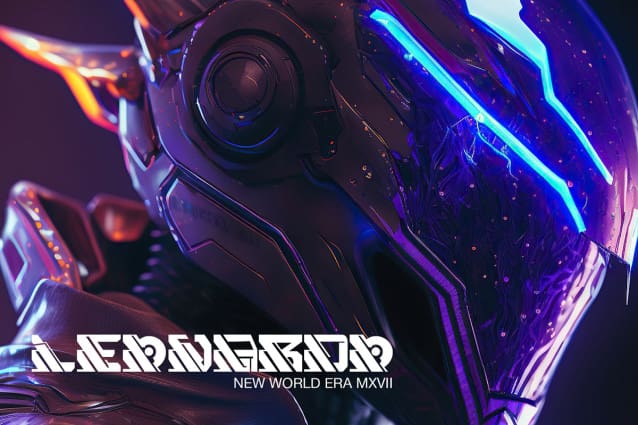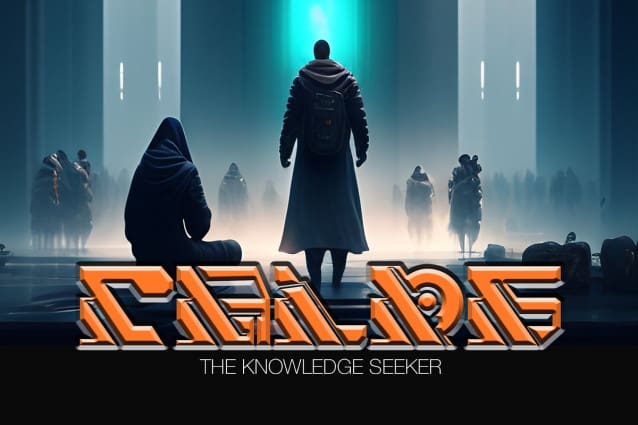
Cyber Square Font
Cyber Square Font, a futuristic font inspired by the world of technology and robotics. Its sleek and stylish design evokes a sense of innovation and progress, making it perfect for your next display, logotype, or movie display. Use it to add a touch of techno to your branding or elevate your art and craft projects to new heights. With Cyber Square, you’ll be sure to leave a lasting impression on your audience and stand out in a world of mundane typography.